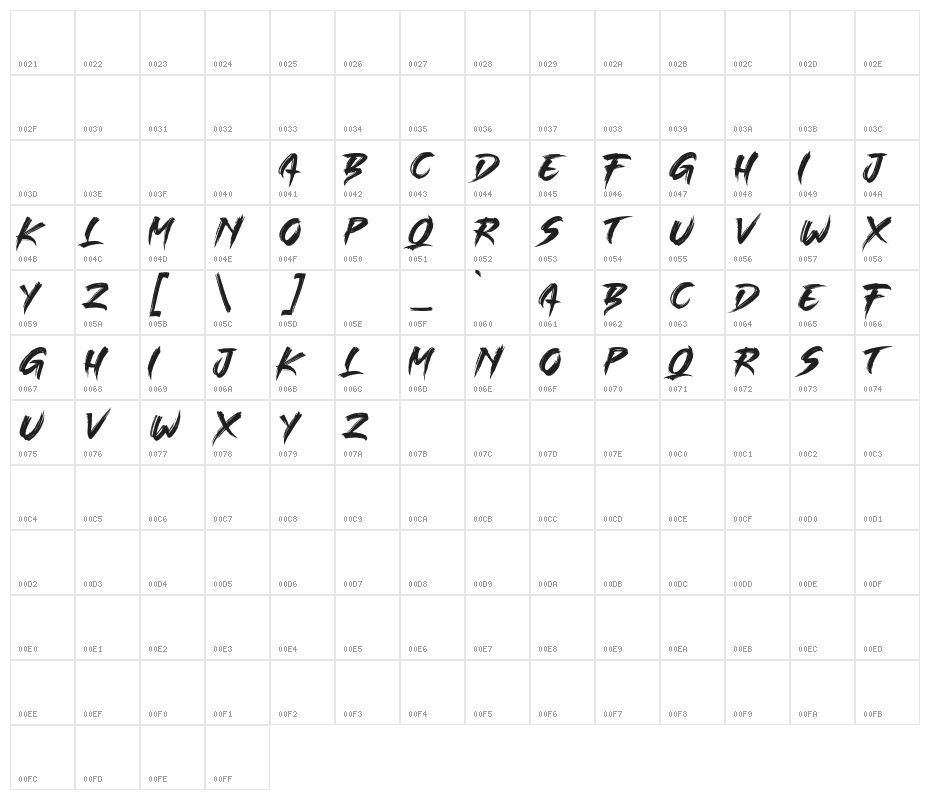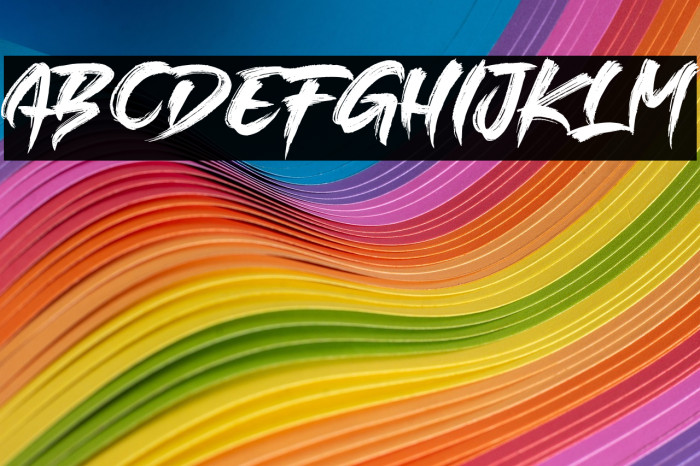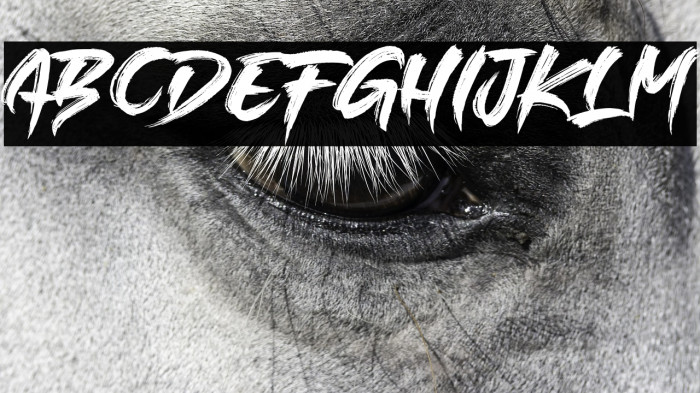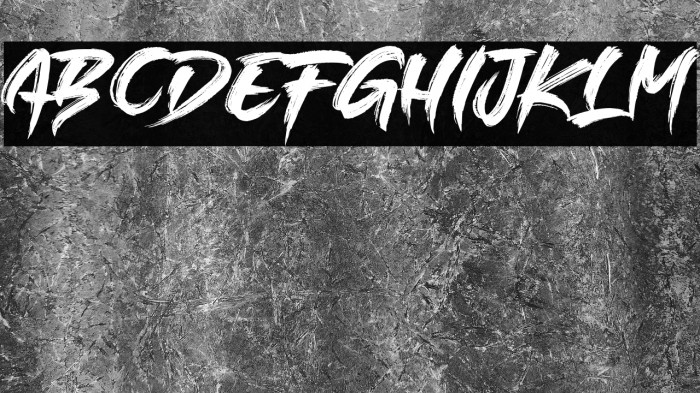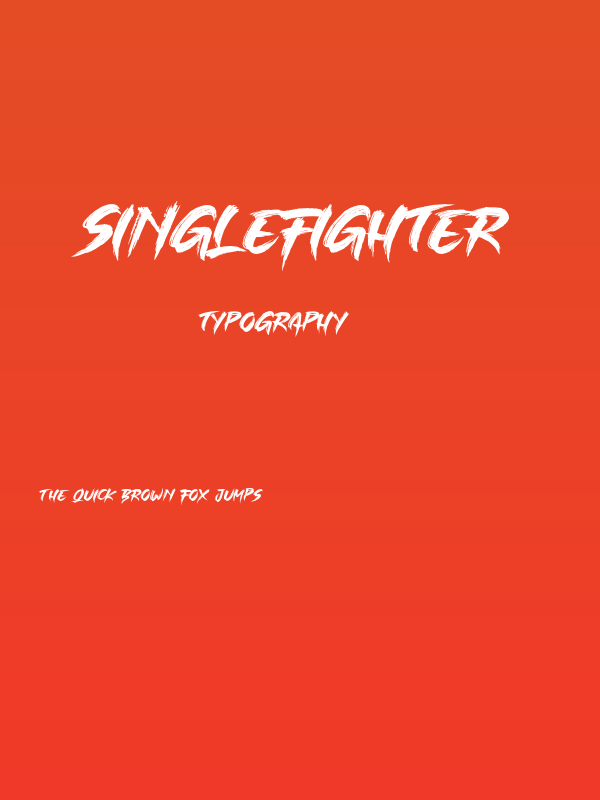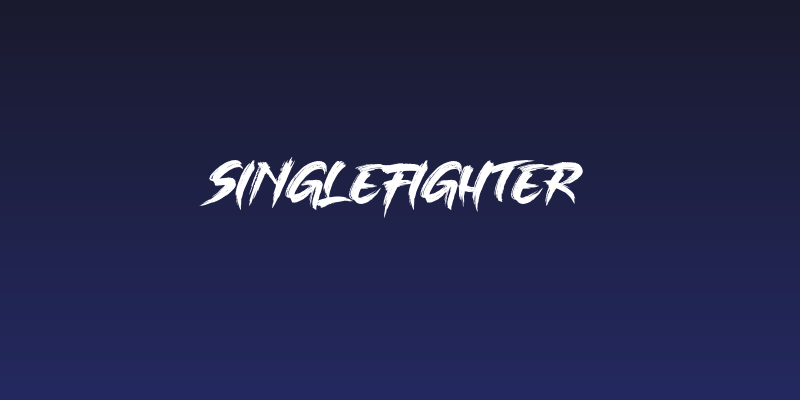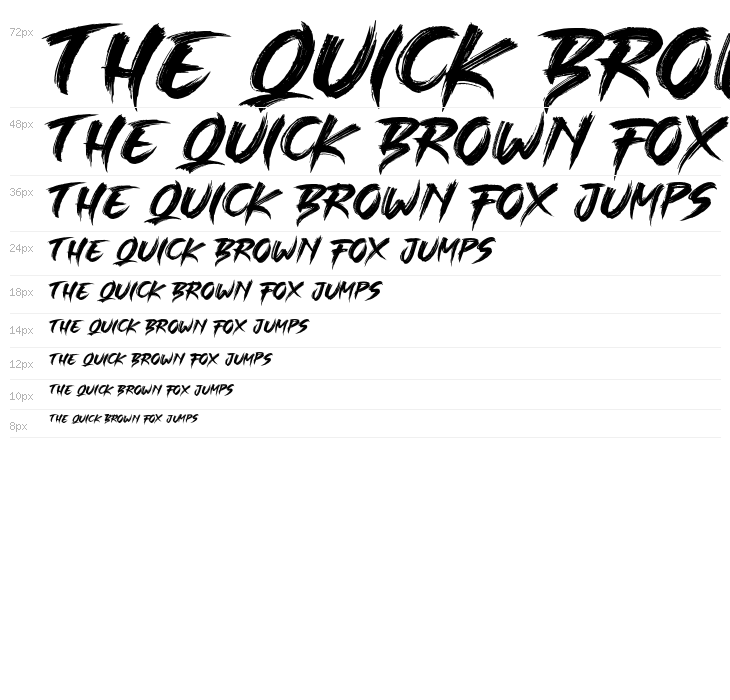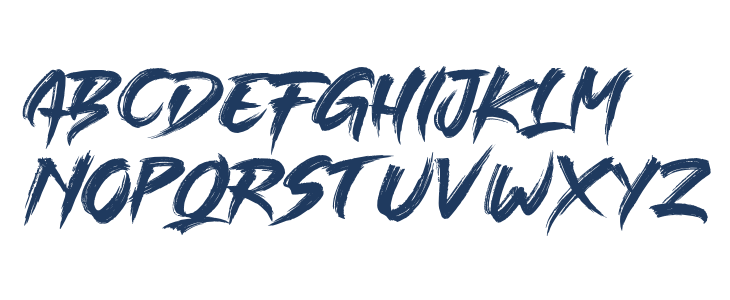
SINGLEFIGHTER Font
SINGLEFIGHTER Description
This font exudes a bold and dynamic energy, characterized by its brush-like strokes and sharp edges. The letters have a hand-painted appearance, with varying thickness that adds a sense of movement and intensity. The uppercase and lowercase letters maintain a consistent style, emphasizing the font's aggressive and impactful nature. The overall design is reminiscent of street art or graffiti, making it ideal for projects that require a strong visual statement. Its unique style captures attention and conveys a sense of urgency and action.
| Overall Style | Modern, Urban |
| Proposed Projects | Ideal for sports branding, action movie posters, streetwear designs, and dynamic logos. |